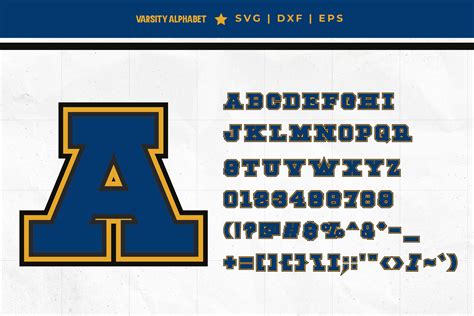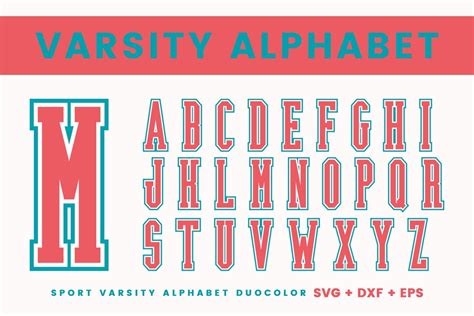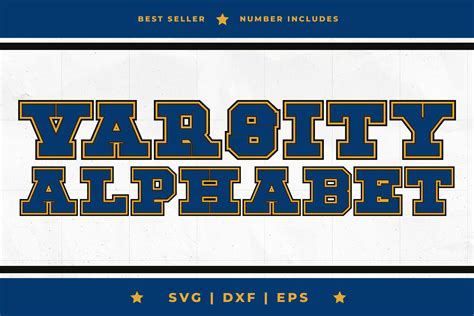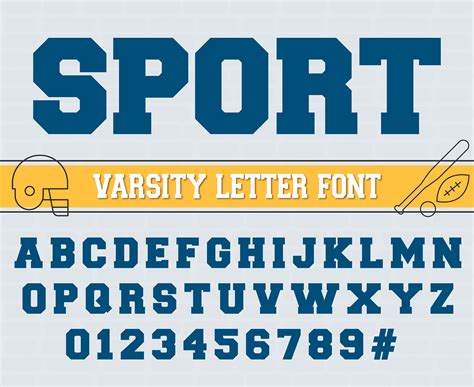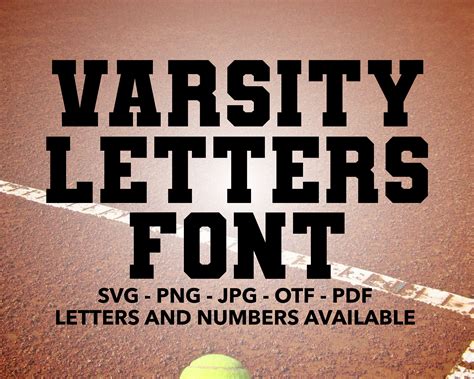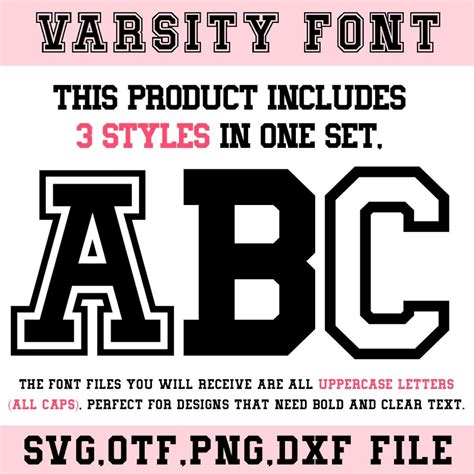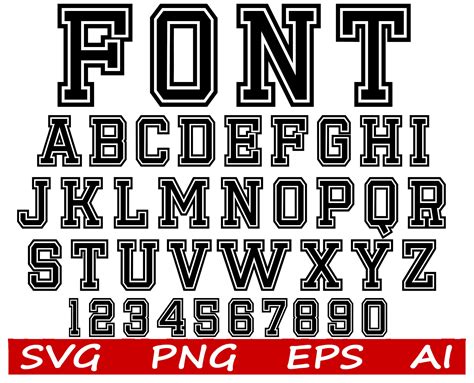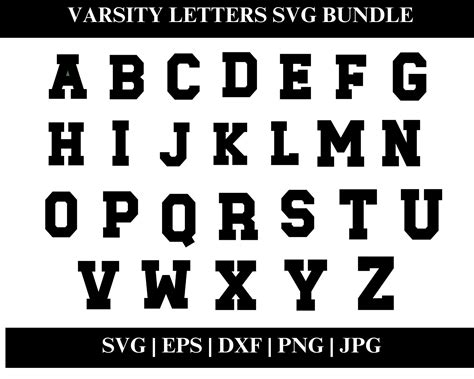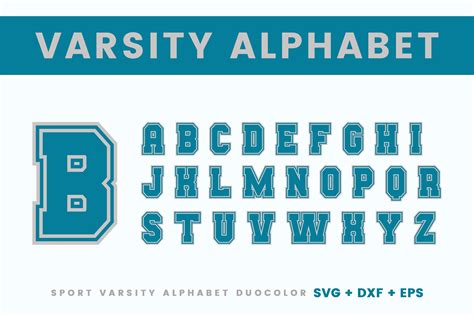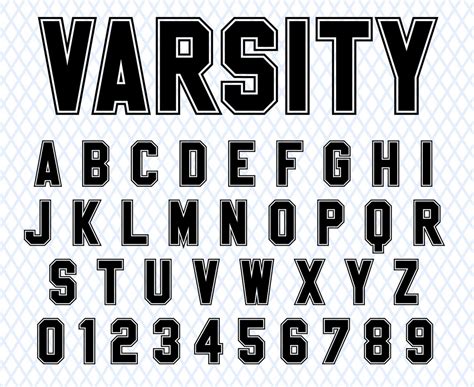
VARSITY LETTER FONT
The world of typography is vast, and within it, the realm of varsity letter fonts holds a special place. These fonts are not just about aesthetics; they carry a rich history and a unique purpose. In this introduction, we will explore the concept of varsity letter fonts, their significance, and the impact they have on various forms of communication.
One of the key aspects of varsity letter fonts is their connection to academic achievement and recognition. These fonts are often used to commemorate and celebrate the accomplishments of students in higher education. When a student earns a "varsity letter," it signifies their excellence in a particular sport or academic field, and the font used to display this letter becomes a symbol of pride and achievement.
The design of these fonts is carefully crafted to convey a sense of tradition and excellence. They often feature clean, crisp lines and a bold, yet elegant style. The letters are typically designed to be easily readable, ensuring that the message of achievement is communicated effectively. One of the key benefits of using varsity letter fonts is their ability to stand out while maintaining a professional and respectful tone.